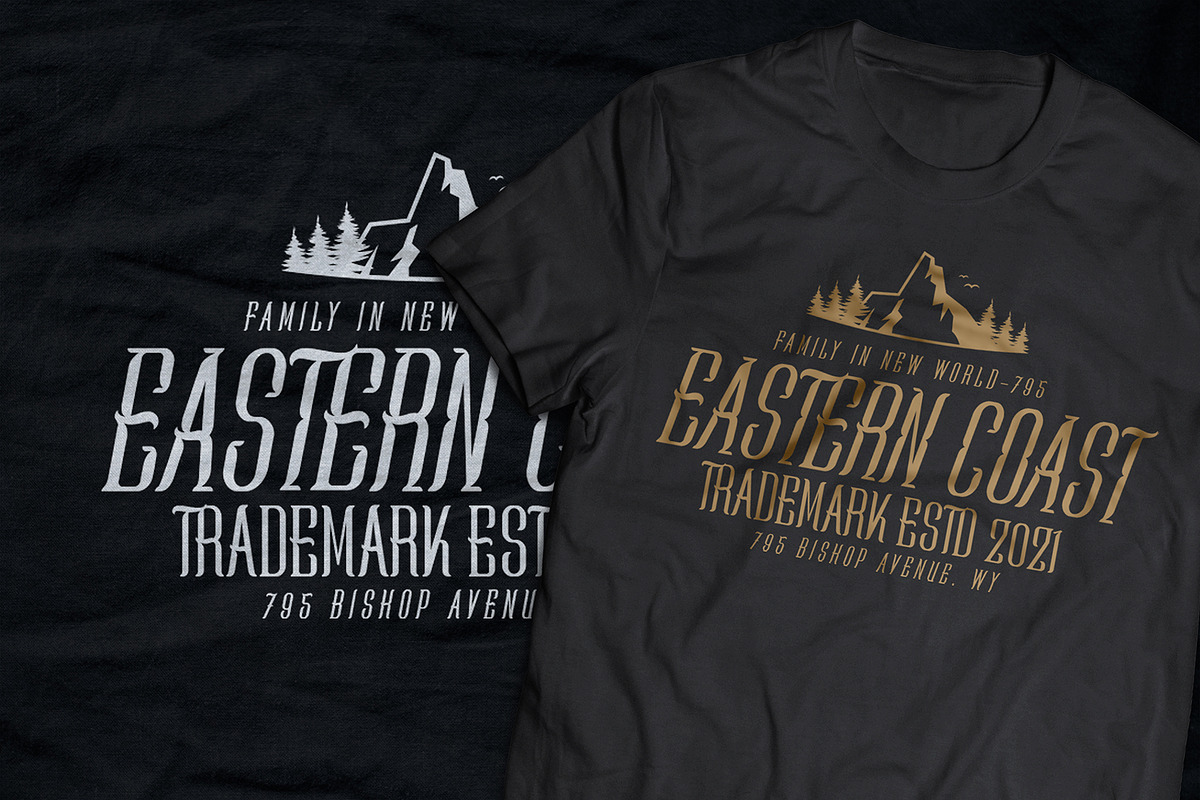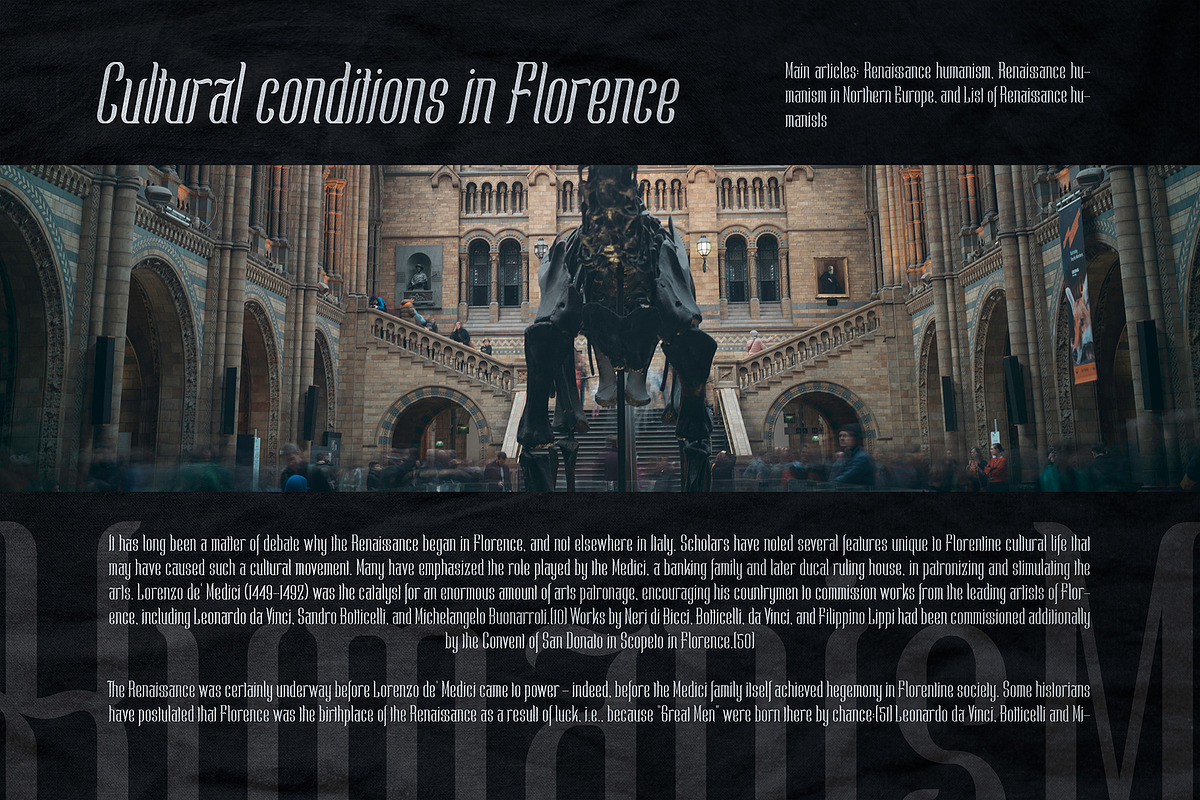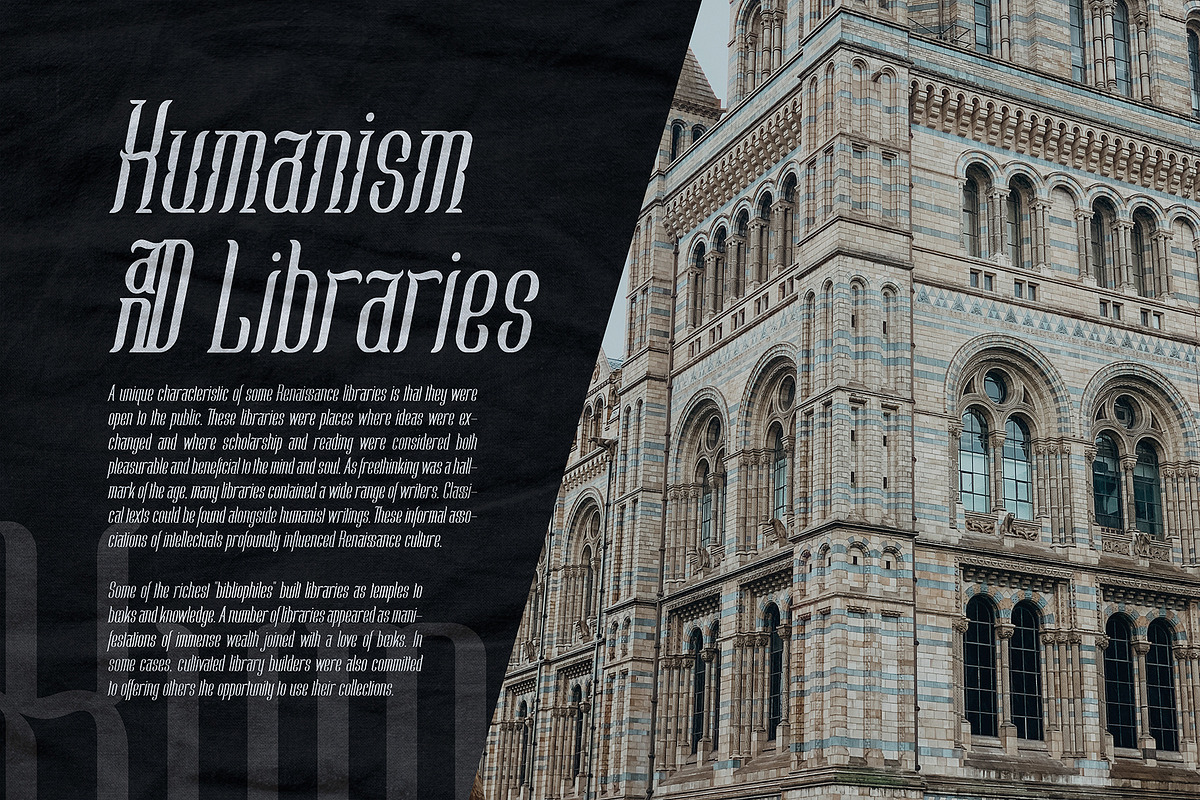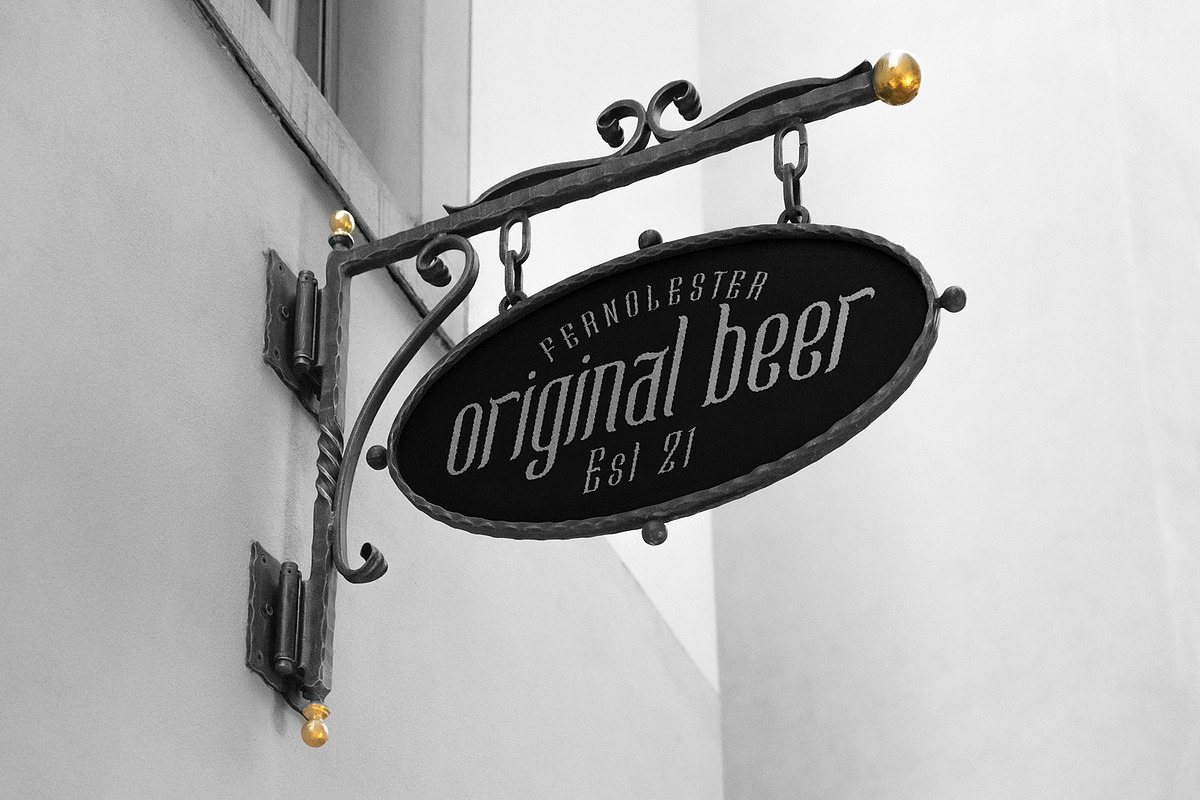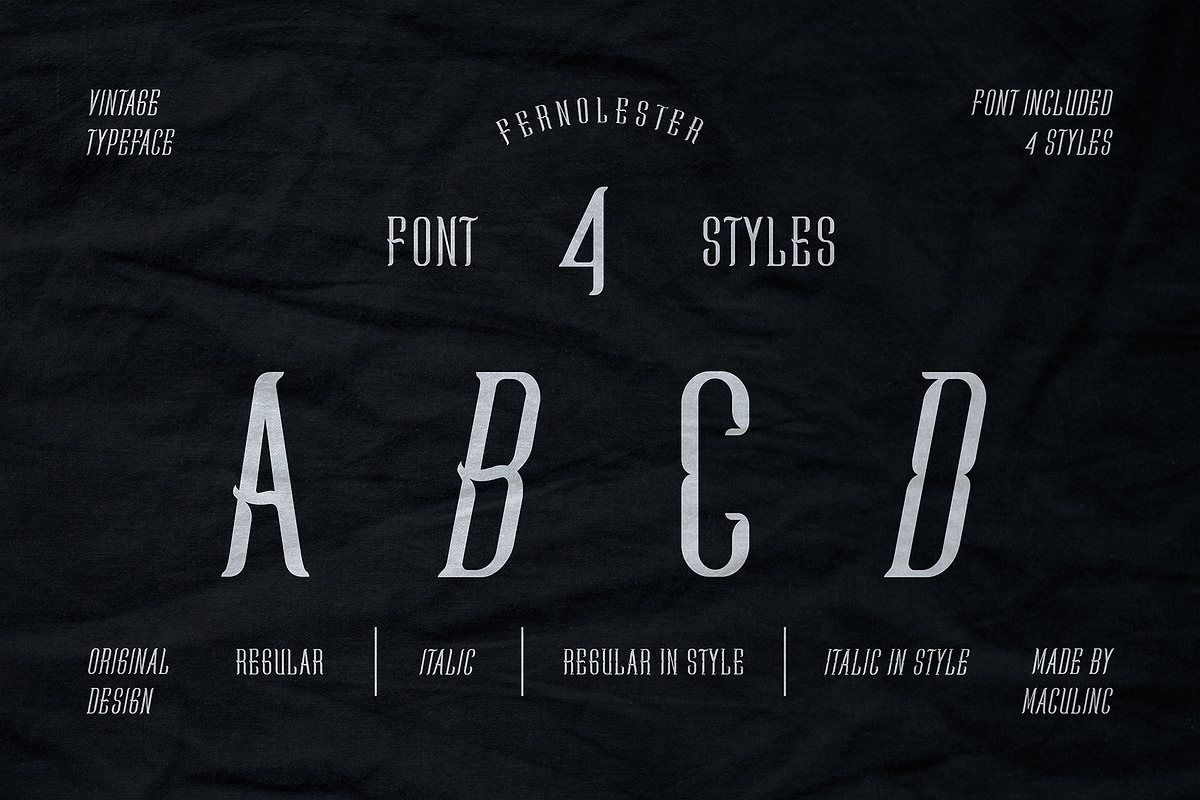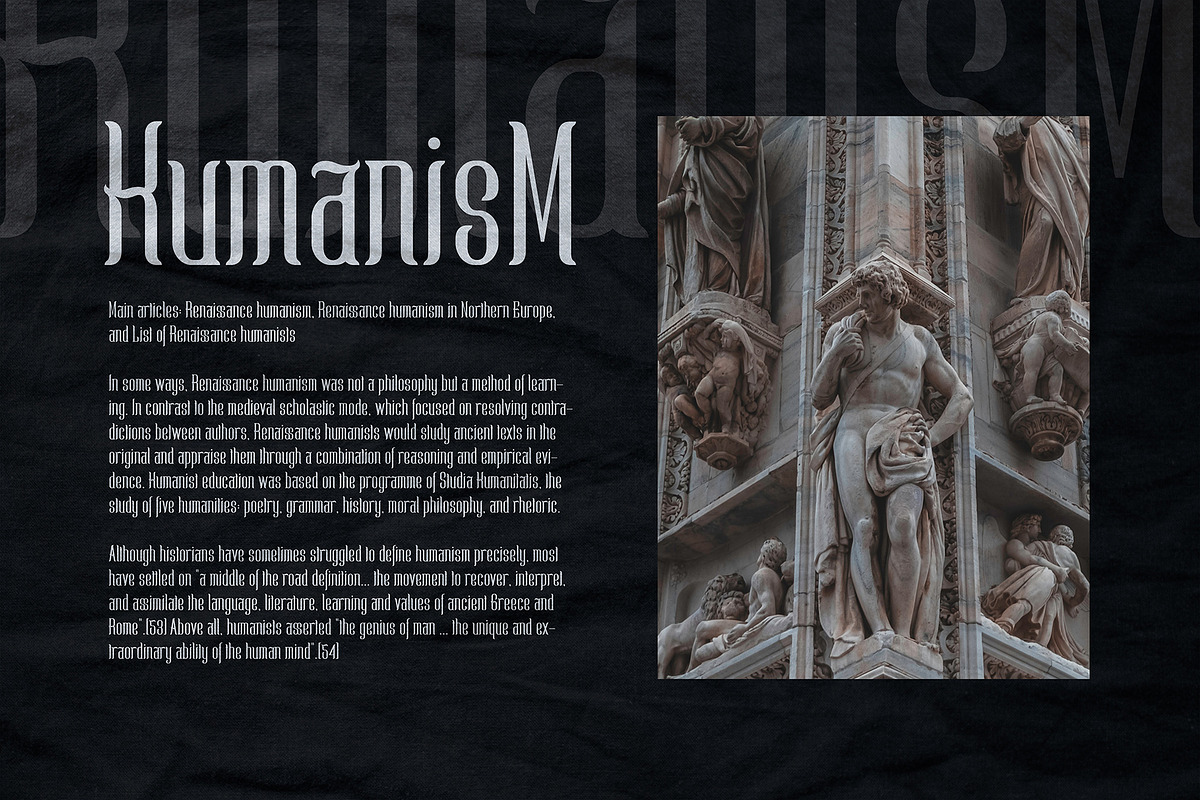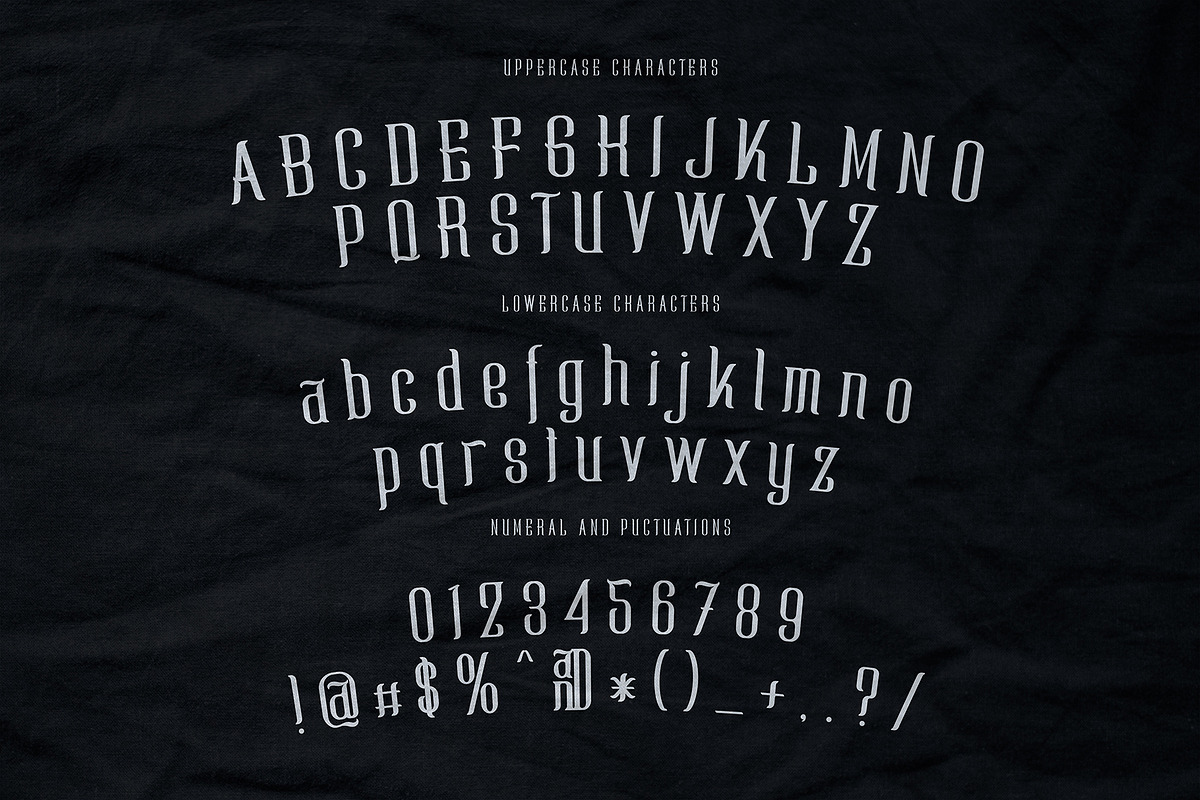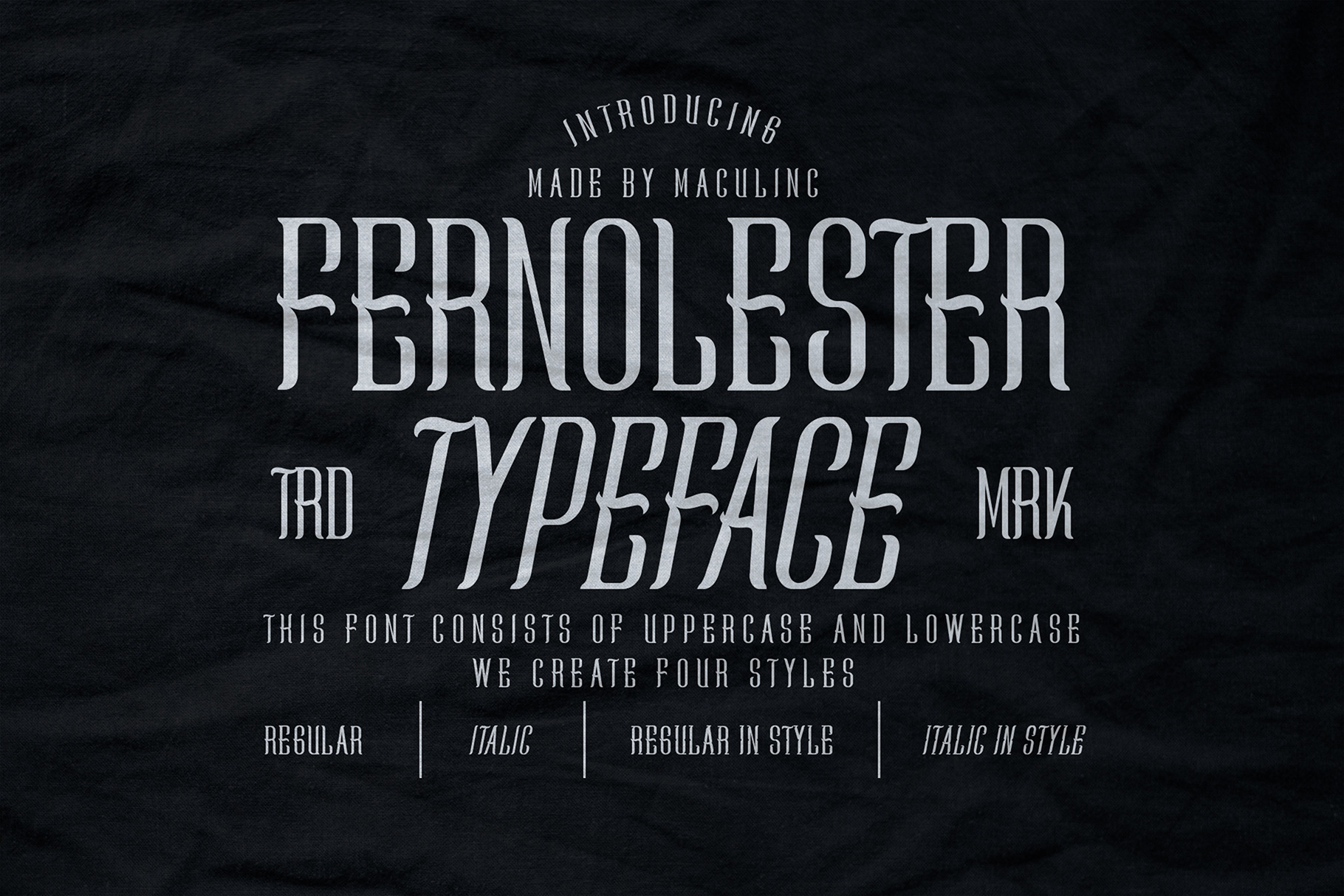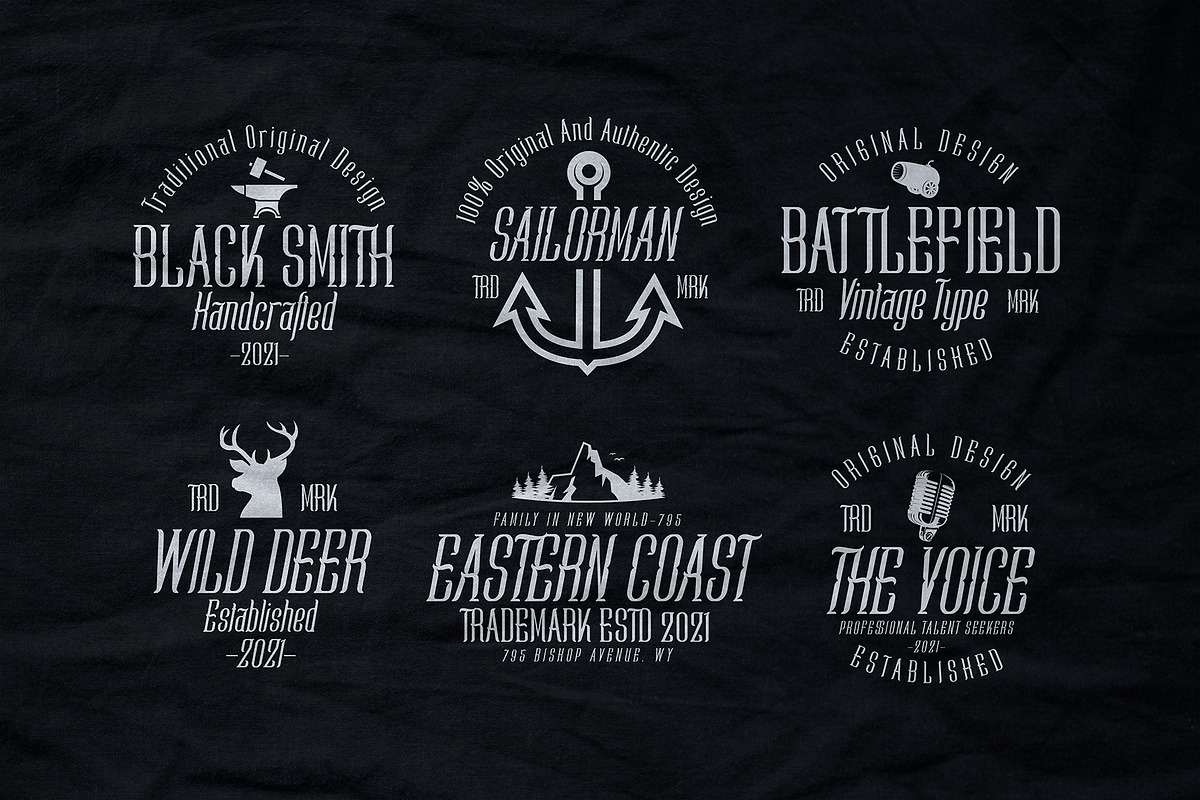
Fernolester - Retro Font
Fernolester is a classic themed font with a unique edge and above all; packed with different styles and ligatures - making it easy to create unique characteristics for your project. This typeface has a classic taste, very suitable as a design choice for books, magazines, packaging, branding, signage and many other creative projects.